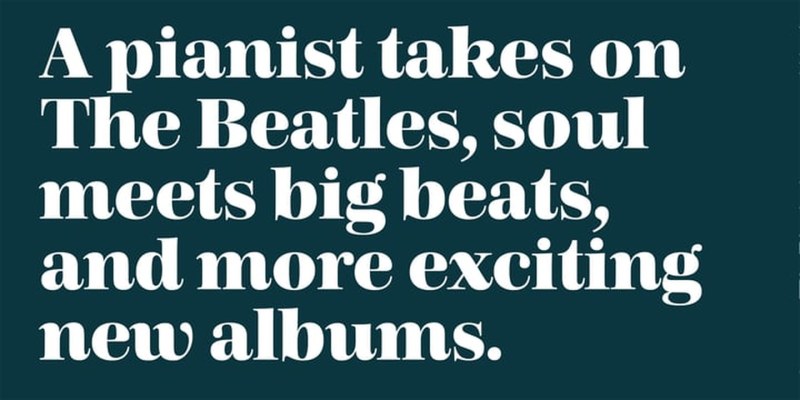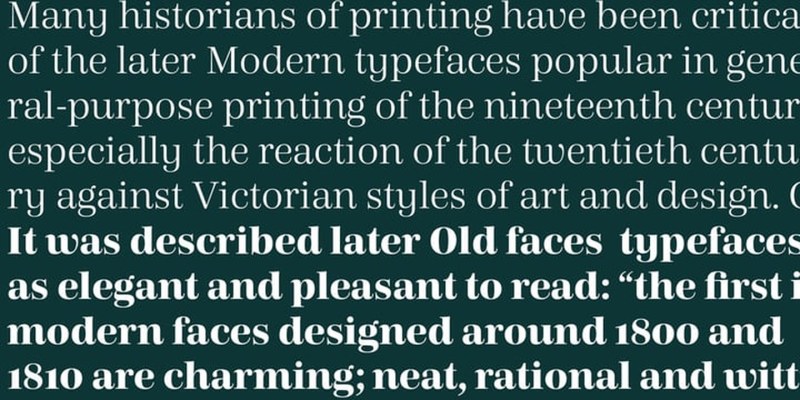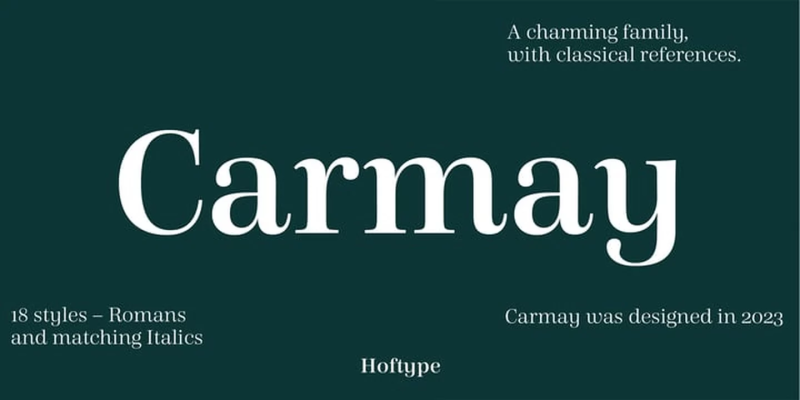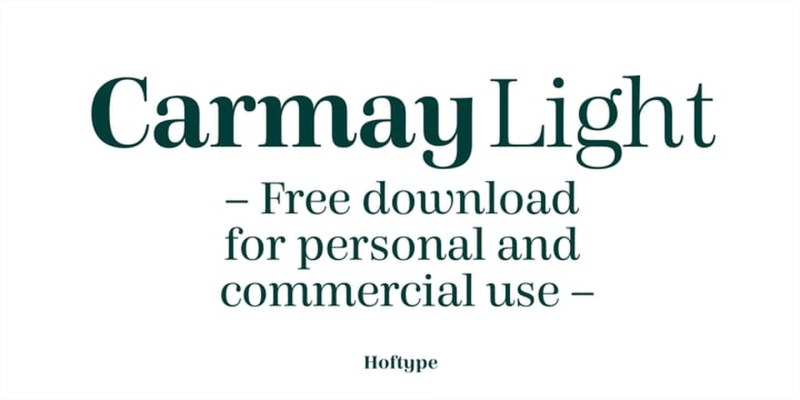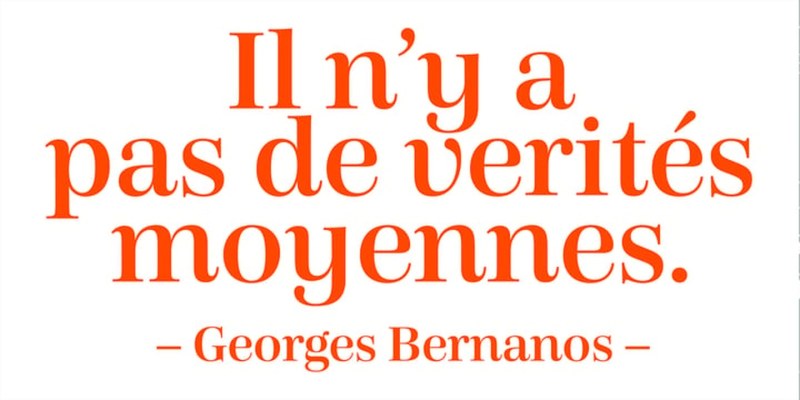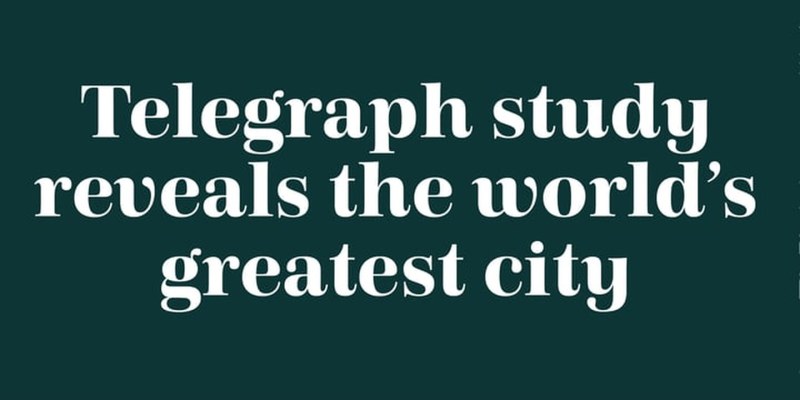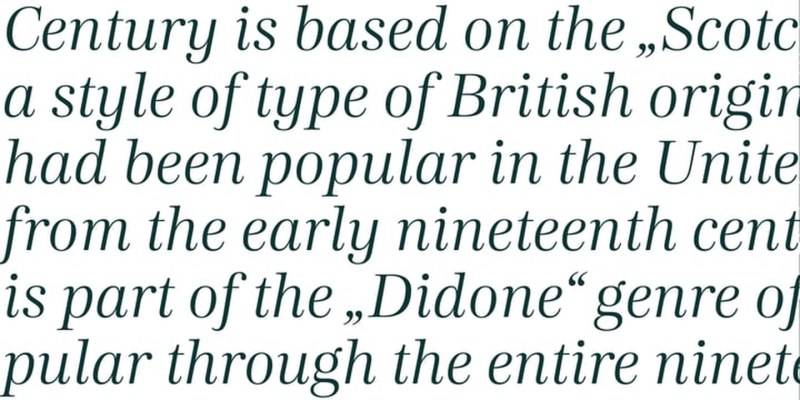
Carmay Font Family
Carmay was conceived as a charming, gently flowing member of the didonesque family. The roman weights present some hybrid characteristics, which results in an appearance…
Carmay was conceived as a charming, gently flowing member of the didonesque family. The roman weights present some hybrid characteristics, which results in an appearance of informality and adds a dash of brio. Carmay, nonetheless, remains restrained and committed to a classical ethos. All weights contain standard and optional ligatures, superior characters, proportional lining figures, tabular lining figures, proportional old style figures, lining old style figures, matching currency symbols, fraction- and scientific numerals, matching arrows.
Carmay Font Family gives long-form text a classic, trustworthy rhythm — ideal for magazine spreads, annual reports and book interiors.
Pair Carmay Font Family with generous letter-spacing for wordmarks in fashion, hospitality, wine and jewellery branding.
Use Carmay Font Family for slide titles in Keynote, PowerPoint or Google Slides to add authority without looking dated.